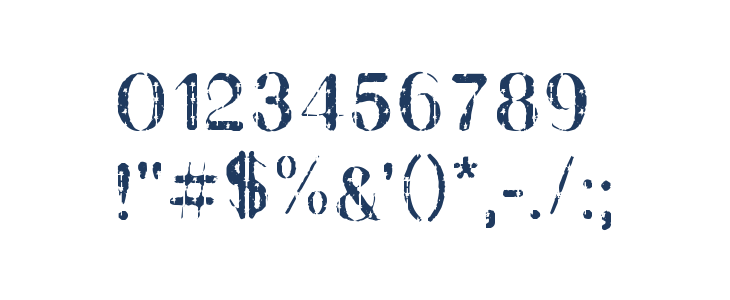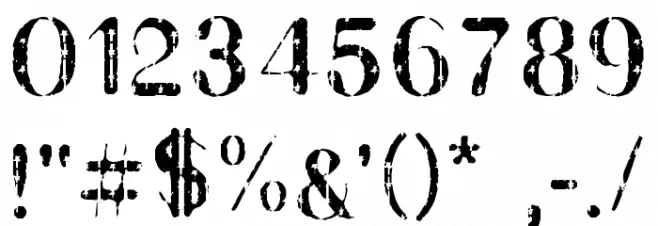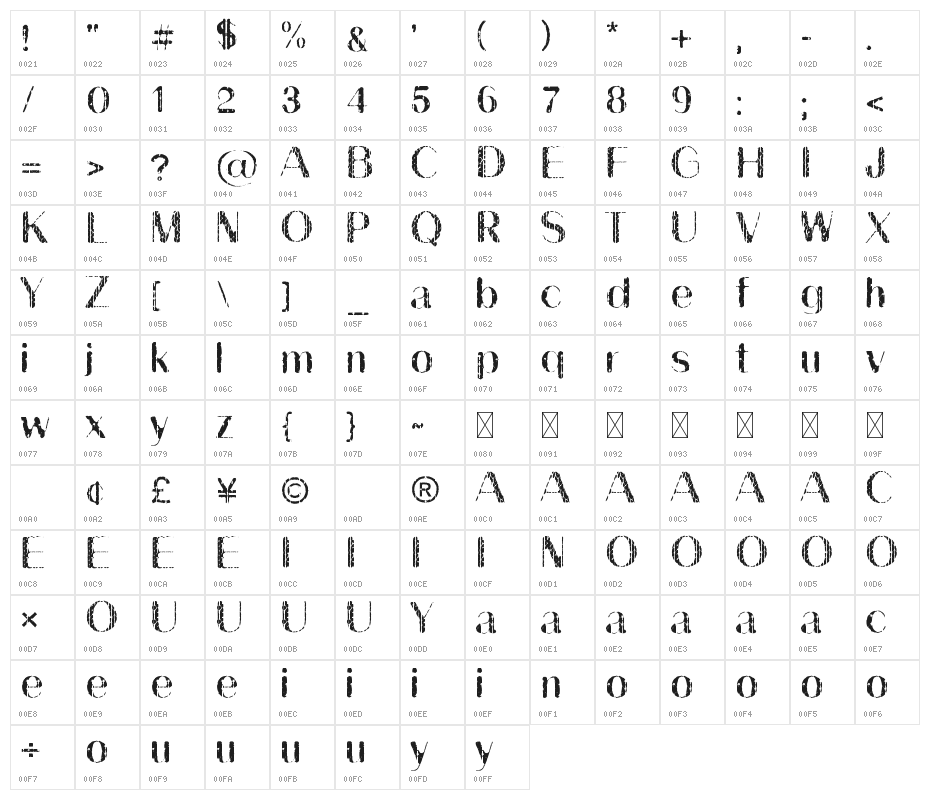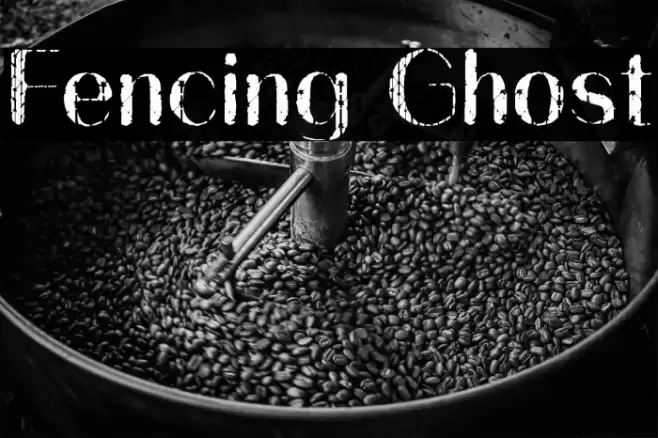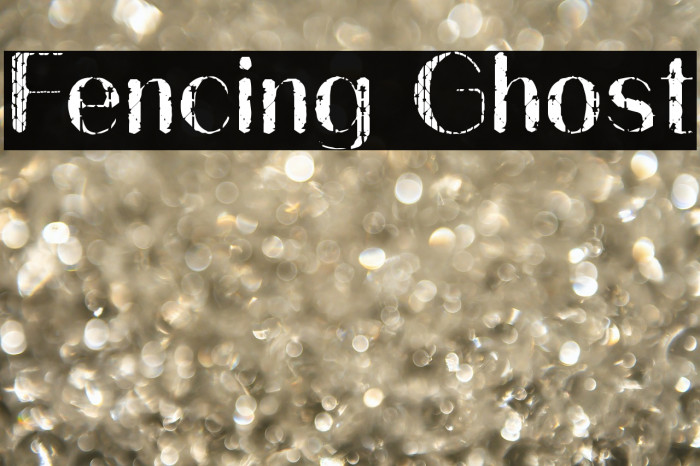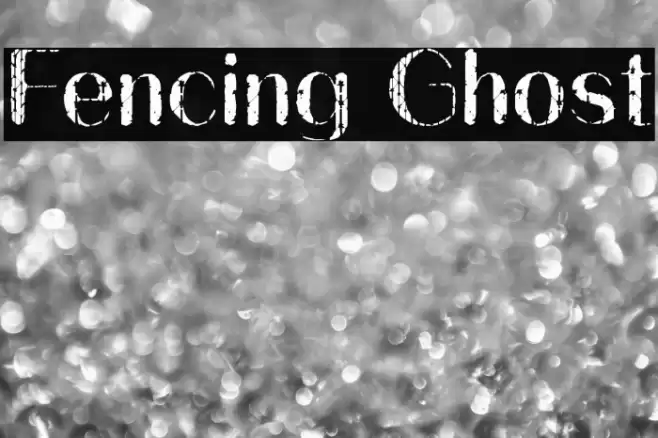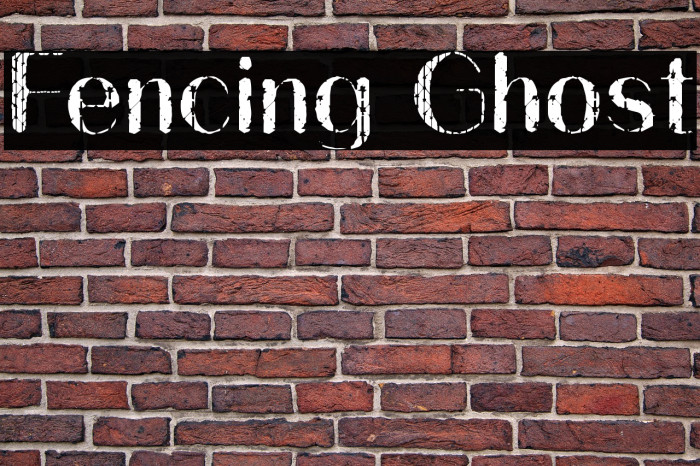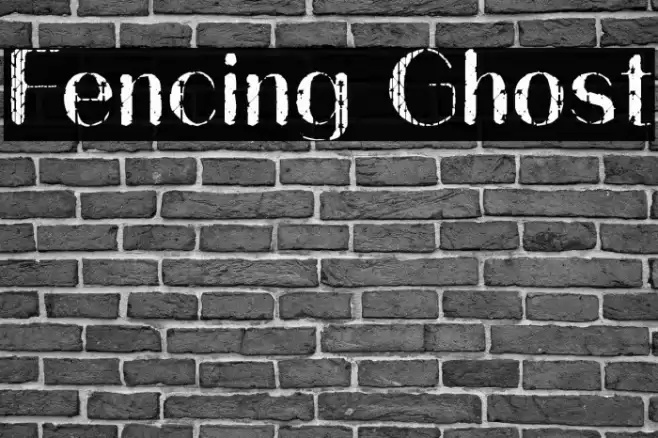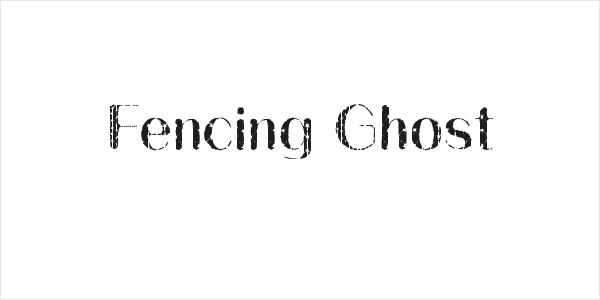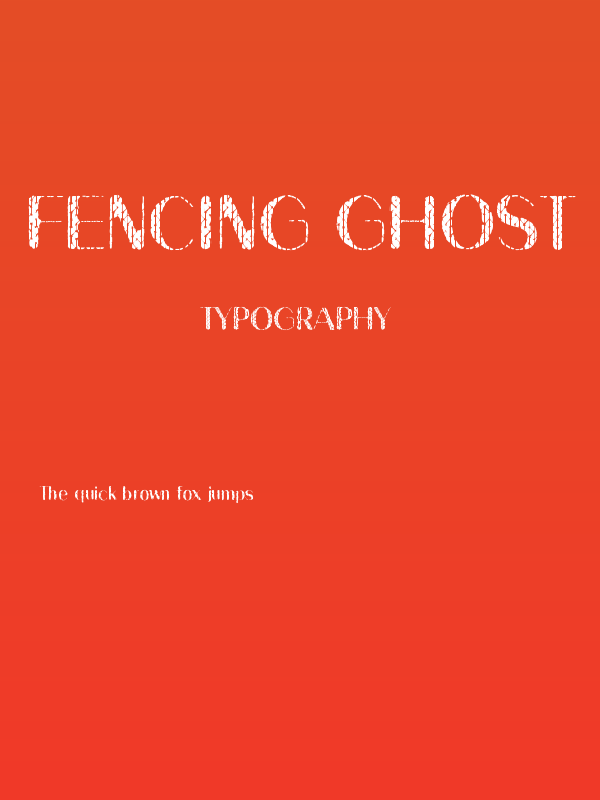
Fencing Ghost Font
Fencing Ghost Description
This font exhibits a distressed, grunge style with a textured appearance that mimics wear and tear. The characters are bold and have a rough, uneven surface, giving them a rugged and edgy look. The uppercase and lowercase letters maintain a consistent style, with noticeable gaps and irregularities that add to the font's unique character. Numbers and special characters follow the same design, ensuring uniformity across all elements. This font is ideal for projects that require a bold statement with a touch of vintage or industrial flair.
Fonts by creativetacos
| Overall Style | Grunge, Vintage |
| Proposed Projects | Ideal for posters, album covers, branding, and any design needing a rugged, vintage look. |